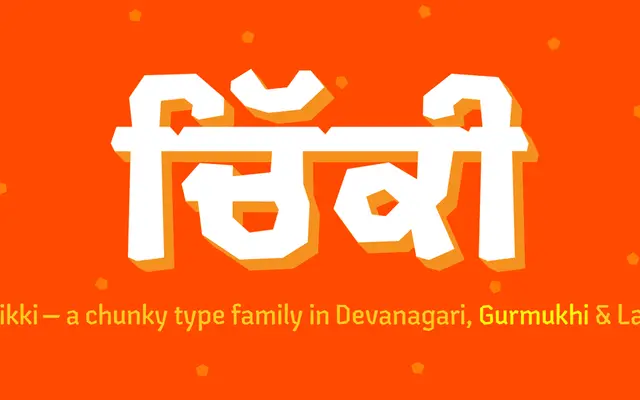
Chikki
A multi-script display family covering Devanagari, Gurmukhi and Latin, built around angular forms that replace curves with straight lines and clipped corners.
Designed by Kimya Gandhi and first released in 2019, Chikki began as hand-sketched Devanagari drawings that were later digitised and extended to include a matching Latin and, subsequently, Gurmukhi. The defining characteristic is its rejection of conventional curves: rounded shapes are rendered with straight-line approximations and corners are subtly chamfered, producing a crunchy, geometric texture that reads distinctively across all three scripts. Six weights run from Light to Black, with a variable font included in complete packages, making it workable at both display scale and longer text settings.
Chikki replaces conventional curves with straight lines and clipped corners across Devanagari, Gurmukhi and Latin scripts, giving it a distinctive geometric, angular character suited primarily to display use.